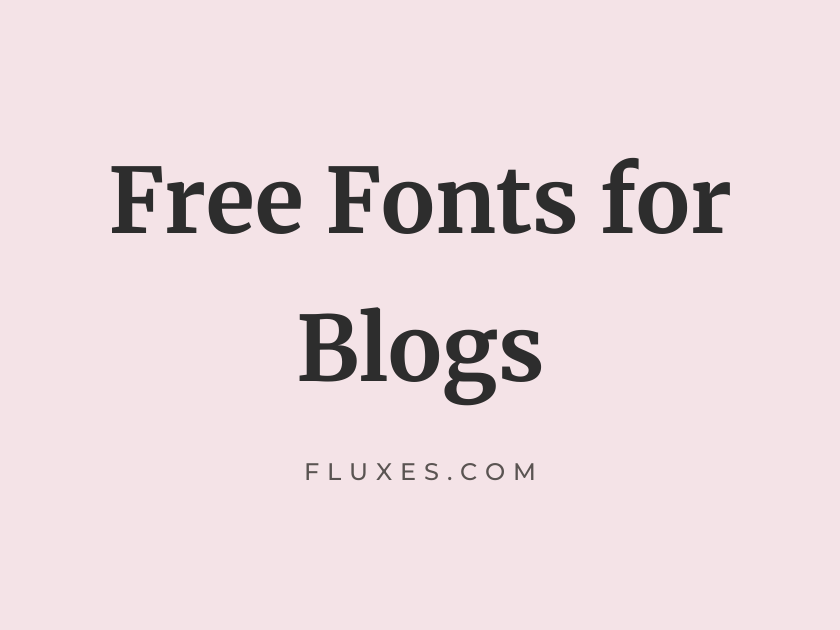
65 Best Free Fonts for Blogs
Typography quietly runs the show on every successful blog: it decides whether a reader settles in for a five-minute article or bounces after the first paragraph. The best free fonts for blogs need to do two jobs well at once, staying comfortable across hundreds of words of body copy while still giving headlines, pull quotes, and navigation enough personality to feel intentional. Every family here is free on Google Fonts, so testing one on a live post takes minutes, not a licensing conversation.
Because blogs cover such different ground, from technical tutorials to personal essays to food and fashion writing, the options below range across long-form serifs built for reading, versatile sans-serifs for interfaces and body text, expressive display faces for headlines, a few monospace picks for code-heavy posts, and some script fonts for blogs with a more personal voice.
1. Merriweather
Long reads deserve a comfortable, sturdy typeface
Built specifically for screens, Merriweather has slightly condensed letterforms and traditional serifs with a sturdy, ink-trap construction that holds up at small sizes. It has become something of a default choice for blog body text, and for good reason: it reads comfortably for paragraph after paragraph without fatigue. Pair it with a clean grotesque sans for headings and you get a combination that feels immediately professional.
2. Lora
Warm serifs for thoughtful, story-driven blog writing
Lora’s brushed curves give it a contemporary warmth that avoids feeling stiff or overly formal. It suits personal essays and narrative blogging particularly well, and pairs naturally with almost any humanist sans for headers.
3. PT Serif
Balanced serifs built for everyday reading comfort
A practical, no-fuss serif originally designed for extensive Cyrillic and Latin text, PT Serif reads cleanly at body sizes without drawing attention to itself.
4. Source Serif 4
Editorial serif built for feature-length blog articles
Adobe designed this as the serif companion to Source Sans, and it shows in the careful spacing and even color across a paragraph. Its optical size variants mean it can flex from dense body copy to larger pull quotes without losing structure, which makes it a smart pick for editorial-style blogs publishing longer features.
5. Noto Serif
Reliable serif with wide multilingual character support
Part of Google’s Noto superfamily, this one exists mainly to solve a problem: missing characters. Any blog publishing in multiple languages benefits from its consistent, dependable letterforms across scripts.
6. Bitter
Slab serif tuned specifically for screen reading
Bitter was originally developed for e-readers, so its sturdy slab serifs and generous x-height hold up well on backlit displays. It brings a slightly more contemporary, confident feel than a traditional text serif, useful for blogs that want warmth without looking old-fashioned.
7. Vollkorn
Grounded serif for calm, unhurried blog posts
Vollkorn means “wholegrain” in German, and the name fits: it’s an understated, workmanlike serif that never competes with the writing itself.
8. Crimson Text
Book-like serif inspired by classic old-style type
Modeled on the old-style book faces of centuries past, Crimson Text carries a literary, printed-page quality that suits essay-driven blogs and personal writing.
9. Crimson Pro
Refined update for serious long-form blog text
A more polished, variable-font successor to Crimson Text, with a broader weight range that makes it easier to build a full type system around a single family.
10. Libre Baskerville
Classic Baskerville reworked specifically for web reading
This is Baskerville with its x-height increased and its contrast slightly tamed, changes made purely to hold up on screens rather than on paper. The result feels timeless and trustworthy, a common choice for blogs and online publications that want a serious, editorial tone.
11. EB Garamond
Elegant Garamond revival for literary, book-style blogs
Delicate strokes and old-style proportions give EB Garamond a distinctly literary character, closer to a printed book than a screen interface. It can turn thin and a touch fragile at very small sizes, so it works best in body copy set at a generous size rather than cramped sidebar text.
12. Spectral
Screen-first serif designed for on-screen reading
Google commissioned Spectral specifically to solve for extended reading on digital interfaces, and the calm rhythm of its letterforms reflects that brief directly.
13. Alegreya
Expressive serif with a literary, calligraphic cadence
Originally designed for long stretches of text, Alegreya has a slightly humanist, calligraphic energy that keeps dense paragraphs visually interesting.
14. Domine
Sturdy serif built to hold blog headlines
Domine was created with digital publishing in mind, and it carries enough weight and structure to work as a headline face while still reading fine at body sizes.
Good blog typography rarely announces itself. The strongest choice is usually the one that lets readers focus entirely on the writing, while still giving headlines and accents just enough character to make the site feel considered rather than default.